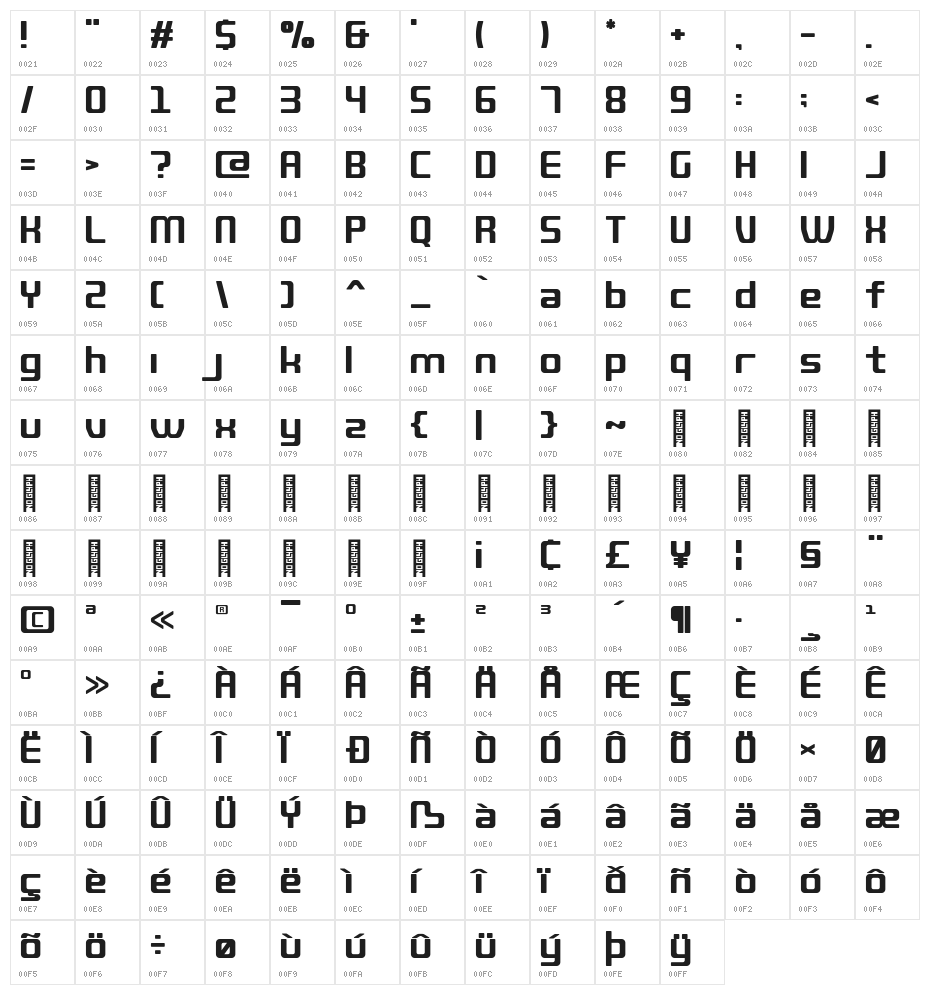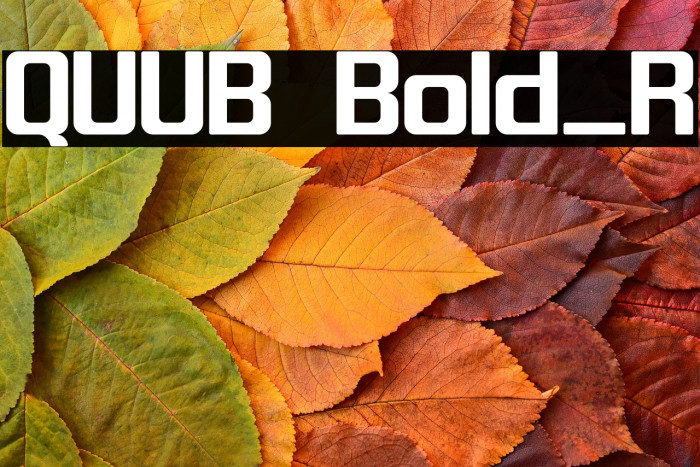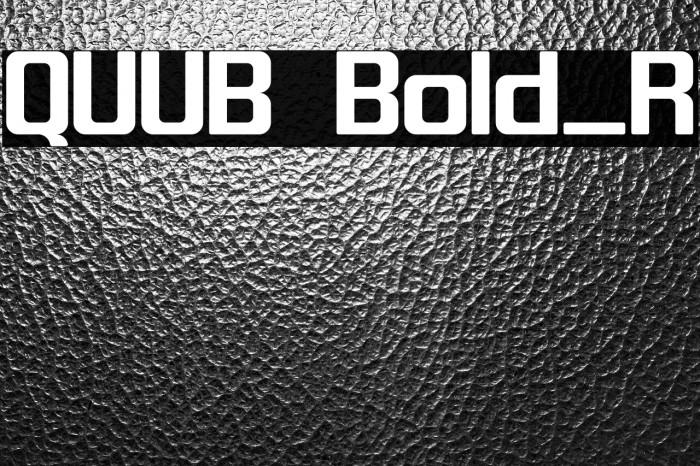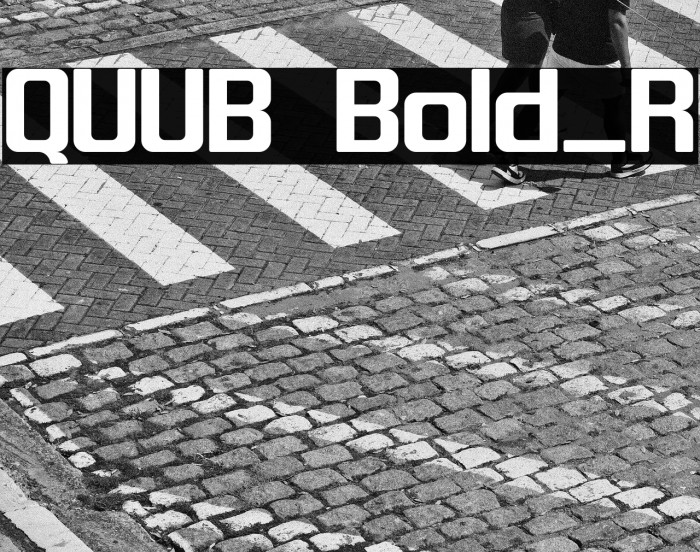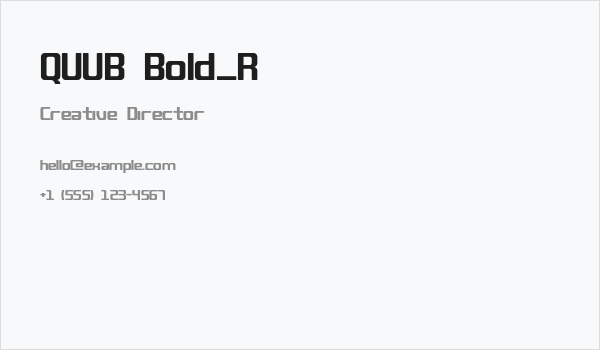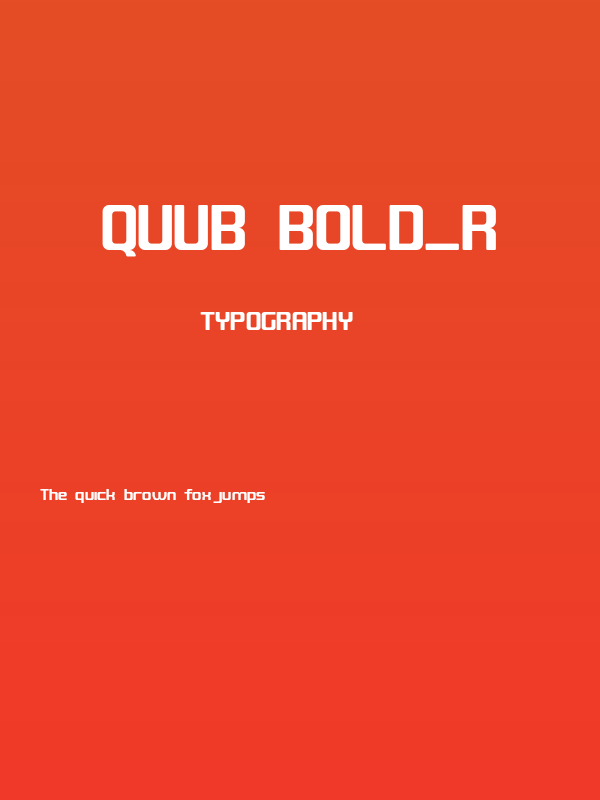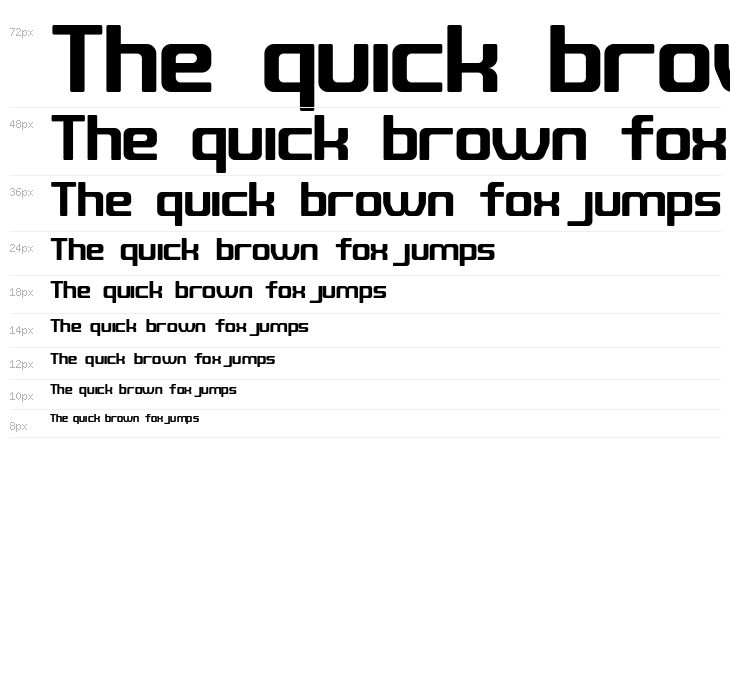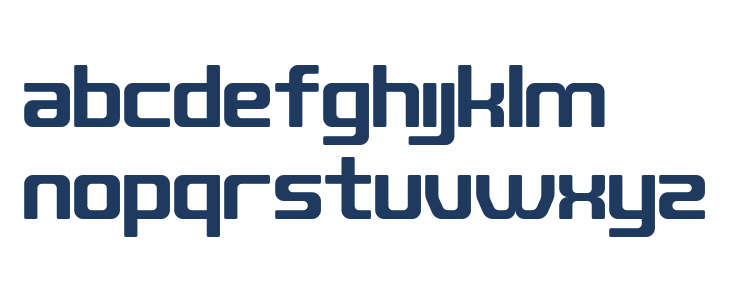
QUUB Bold_R Font
QUUB Bold_R Description
This font features a bold, geometric design with a modern and futuristic aesthetic. The characters are constructed with consistent stroke widths, giving it a uniform and balanced appearance. The rounded edges and square-like shapes create a distinctive look that is both sleek and approachable. The uppercase and lowercase letters maintain a cohesive style, while the numerals and special characters complement the overall design. The font's structure is clean and uncluttered, making it suitable for a variety of applications where clarity and impact are desired.
| Use Case | Headlines, Logos, Digital Interfaces |
| Proposed Projects | Ideal for technology branding, digital interfaces, modern advertising, and futuristic-themed projects. |